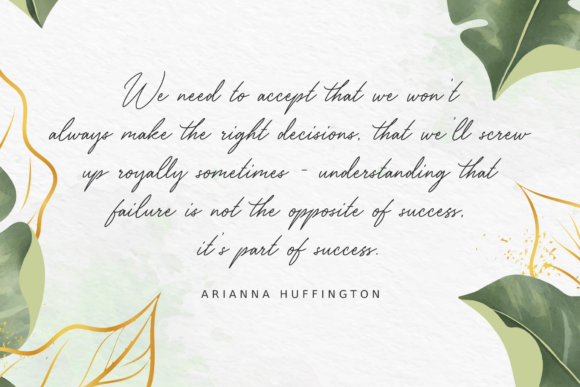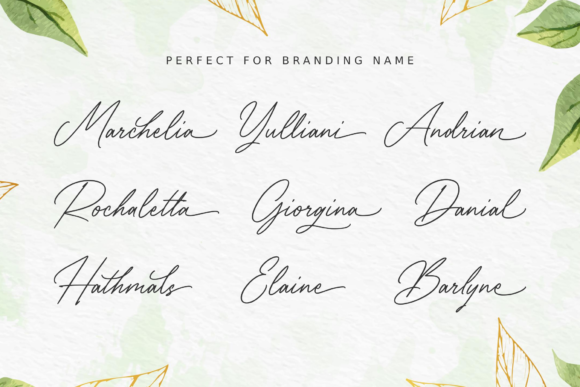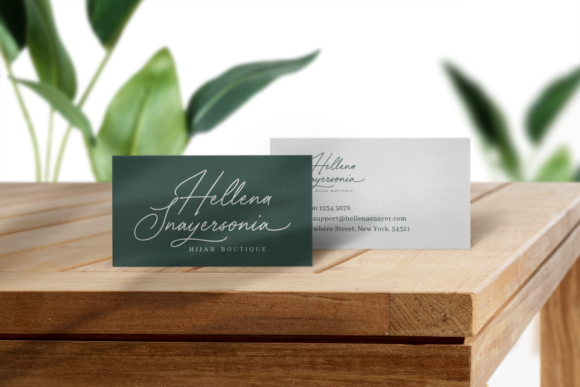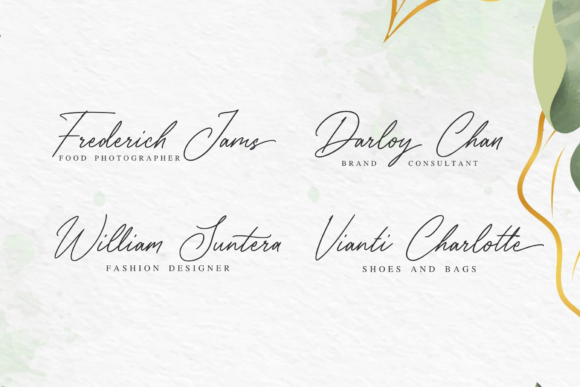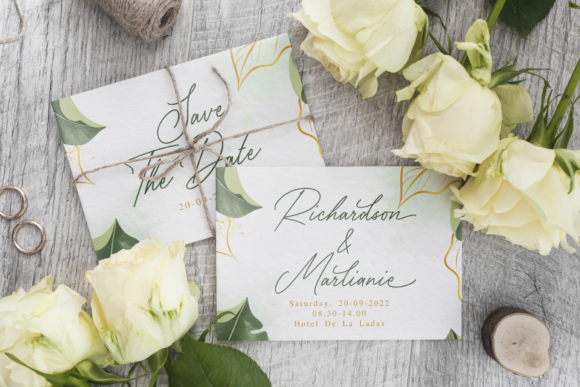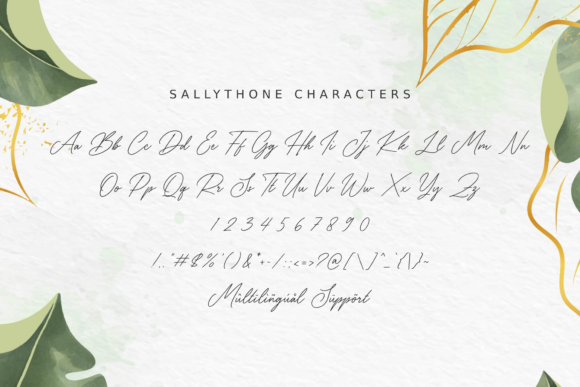
Introduction to Sallythone Font
Have you ever stared at a blank canvas, waiting for the perfect font to bring your creative project to life? It’s a moment we’ve all experienced, where the right design resource can make all the difference between a good idea and a great one. For designers, finding the perfect font can be a game-changer.
Enter Sallythone Font, a stunning signature font that’s designed to elevate your branding projects, invitation cards, websites, and more. With its classy, high-quality design and PUA encoding, accessing its many alternates and ligatures is a breeze, making it perfect for designers who want to add a touch of sophistication to their work.
Whether you’re working on a free download or a paid project, Sallythone Font is a valuable asset that’s sure to impress. Its transparent background and beautiful swashes make it a must-have for any designer looking to take their creative projects to the next level.
Key Features of Sallythone Font
- High-quality design resource perfect for creative projects, including graphic design, digital art, and typography.
- Features a transparent background, allowing for seamless integration into various design elements and backgrounds.
- Designed to be highly legible, with a clear and crisp resolution of 300 DPI, making it ideal for both digital and print applications.
- Unique characteristics include a bold, modern aesthetic and a wide range of stylistic options, allowing designers to customize the font to suit their creative vision.
Honest Review: Sallythone Font
I recently had the chance to try out the Sallythone Font for a creative project, and I was pleasantly surprised. Here’s my honest review.
- The font’s high quality is immediately apparent, with crisp lines and smooth typography.
- I appreciate that the font has a transparent background, making it easy to place over any design element.
- Unfortunately, the Sallythone Font only comes in a single style, which may limit its versatility in certain design projects.
Overall, I was impressed with the Sallythone Font’s design and versatility. It’s a great resource for designers working on a free project or looking to add some high-quality typography to their creative work. Just be aware of its limitations, and you’ll be well on your way to creating amazing designs with this font.
Tips for Getting the Most Out of Sallythone Font
For the best results, use the Sallythone Font on a transparent background and pair it with other design elements to create a visually appealing design. Experiment with different font sizes and styles to achieve the desired look for your creative project.
Common Use Cases for Sallythone Font
The Sallythone Font is ideal for a variety of design projects, including logos, business cards, and social media graphics. Its unique, high-quality design makes it a valuable resource for designers and non-designers alike.
Alternatives to Sallythone Font
The Alex Brush Font is a high-quality, elegant script font perfect for design projects requiring a touch of sophistication. It features a transparent background, making it ideal for overlaying text on images or backgrounds. Suitable for wedding invitations, greeting cards, and other creative projects.
Compared to Sallythone Font, Alex Brush Font has a more refined and polished look, making it a better choice for formal events and high-end design projects.
The Great Vibes Font is a modern, elegant script font ideal for design projects requiring a sense of luxury and sophistication. It features a high-quality design and can be used with a transparent background to create a beautiful overlay effect. Suitable for magazine covers, book titles, and other creative projects.